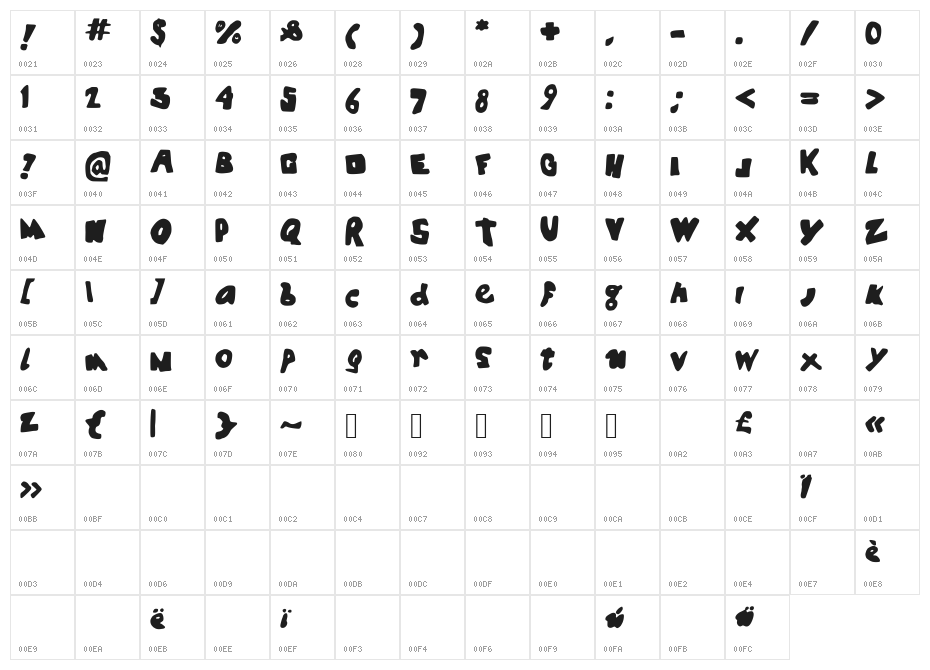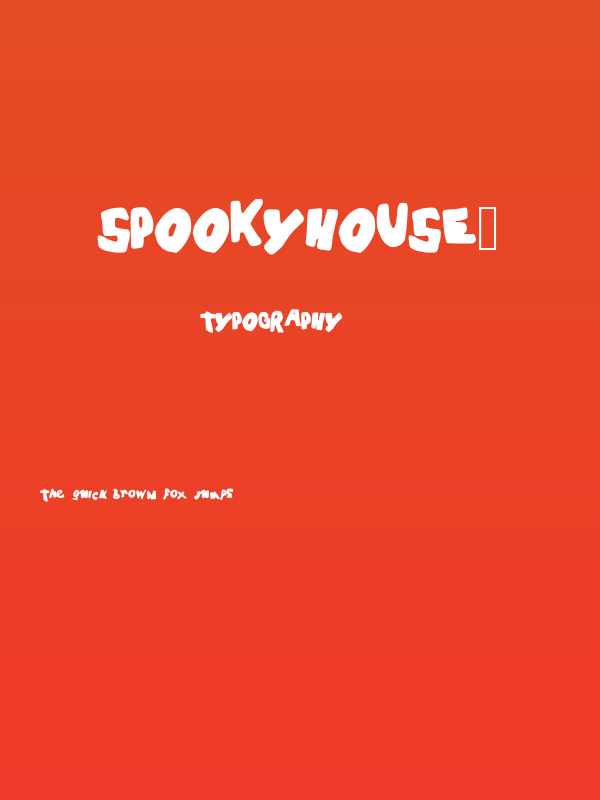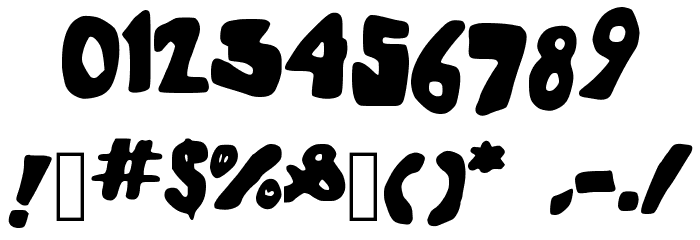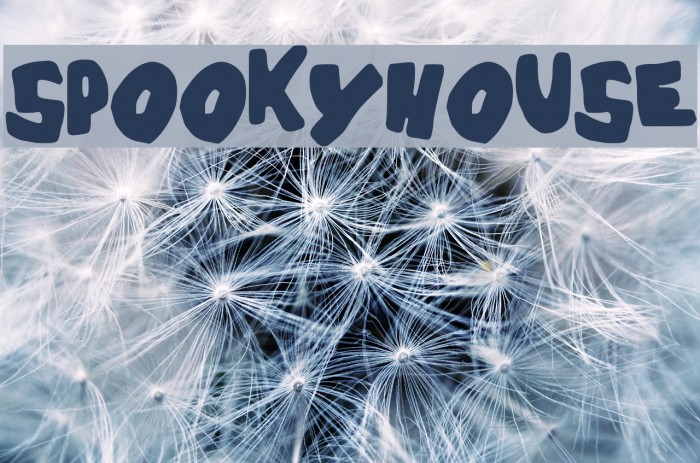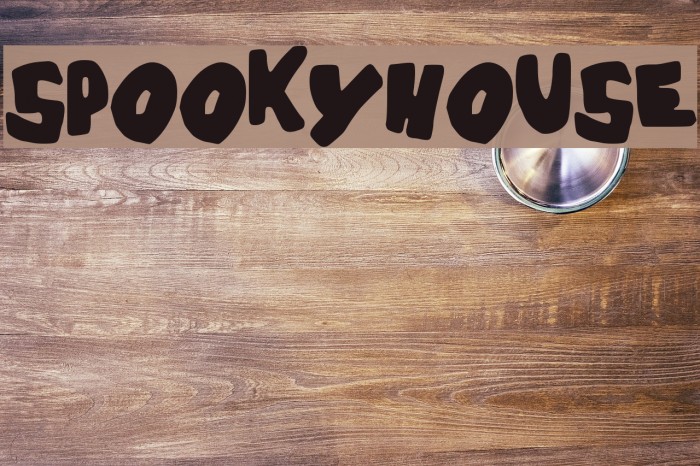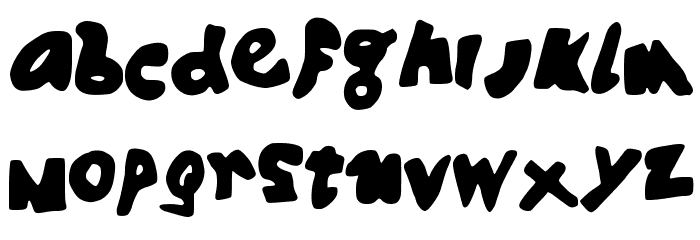
SPOOKYHOUSE_ Font
SPOOKYHOUSE_ Description
This font features a playful and bold design with irregular, chunky letterforms that evoke a sense of whimsy and fun. Each character has a unique, hand-drawn appearance, with varying thickness and a slightly distorted shape that adds to its quirky charm. The uppercase and lowercase letters maintain a consistent style, with rounded edges and a slightly uneven baseline, enhancing its informal and lively feel. The numbers and special characters follow the same playful aesthetic, making the font suitable for creative and unconventional projects. Its bold presence and distinctive style make it stand out, perfect for capturing attention.
| Overall Style | Playful, Quirky |
| Use Case | Headlines, Posters, Branding |
| Proposed Projects | Ideal for children's book covers, Halloween-themed designs, playful branding, and eye-catching posters. |